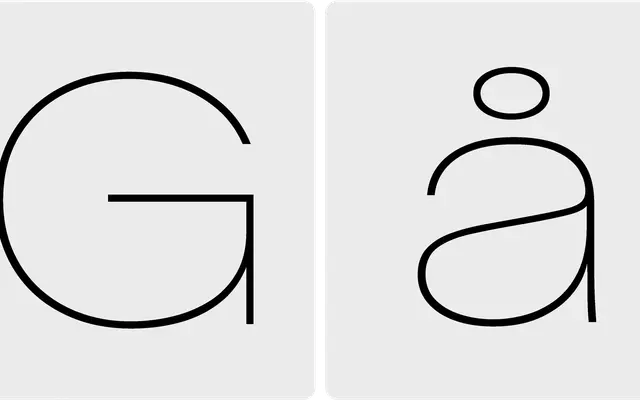
Only Extended
Swiss Typefaces · Emmanuel Rey, Quentin Schmerber
An extended sans by Emmanuel Rey and Quentin Schmerber, with Cyrillic development by CSTM Fonts and Vietnamese consulting by Donny Trương.
Designed at Swiss Typefaces by Emmanuel Rey and Quentin Schmerber, Only Extended is a wide-cut sans with notable multilingual reach, covering Latin, Cyrillic and Vietnamese. Cyrillic was developed by Ilya Ruderman and Yury Ostromentsky of CSTM Fonts, lending that script genuine authority. Font engineering was handled by Benedikt Bramböck, consistent with Swiss Typefaces' in-house production rigour.
The name and foundry context suggest a wide or extended grotesque or geometric sans; Swiss Typefaces consistently produce clean, contemporary Latin-Cyrillic sans-serif families with strong typographic rigour.